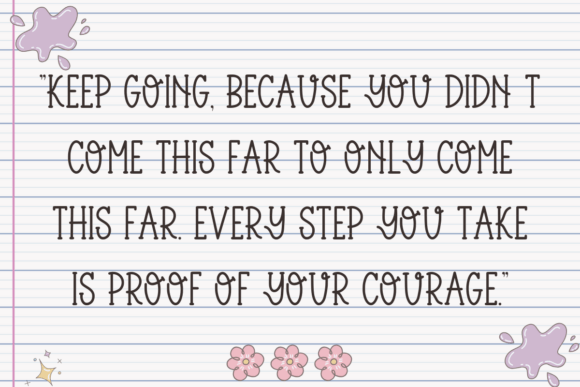
Grinch Sticker Font
Grinch Sticker is a fun and playful font that’s perfect for crafts, planners, KDP, stickers, greeting cards, and more. With its cute and friendly style, it works great for Cricut, sublimation, and creative DIY projects. Ideal for crafters, designers, and makers!